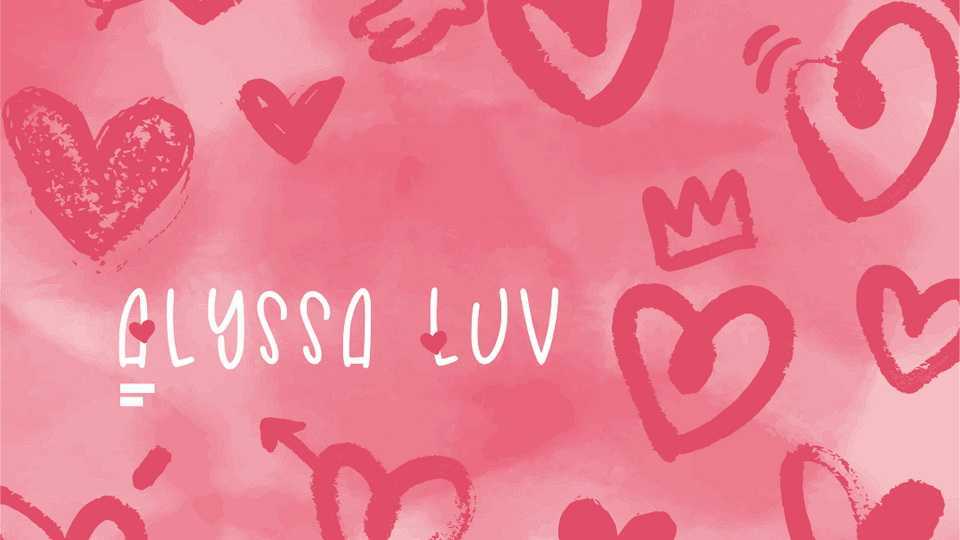
Download Alyssa Luv font, a sweet and lovely handwritten typeface. Alyssa Luv will be perfect for books, greeting cards, logos, posters or anything that requires a fun and happiness look.